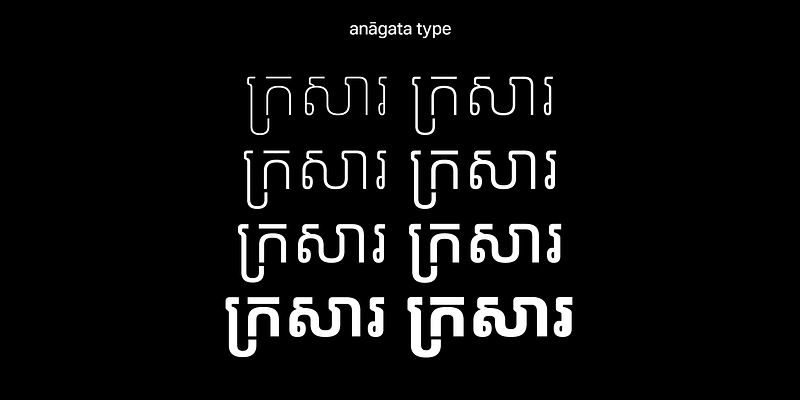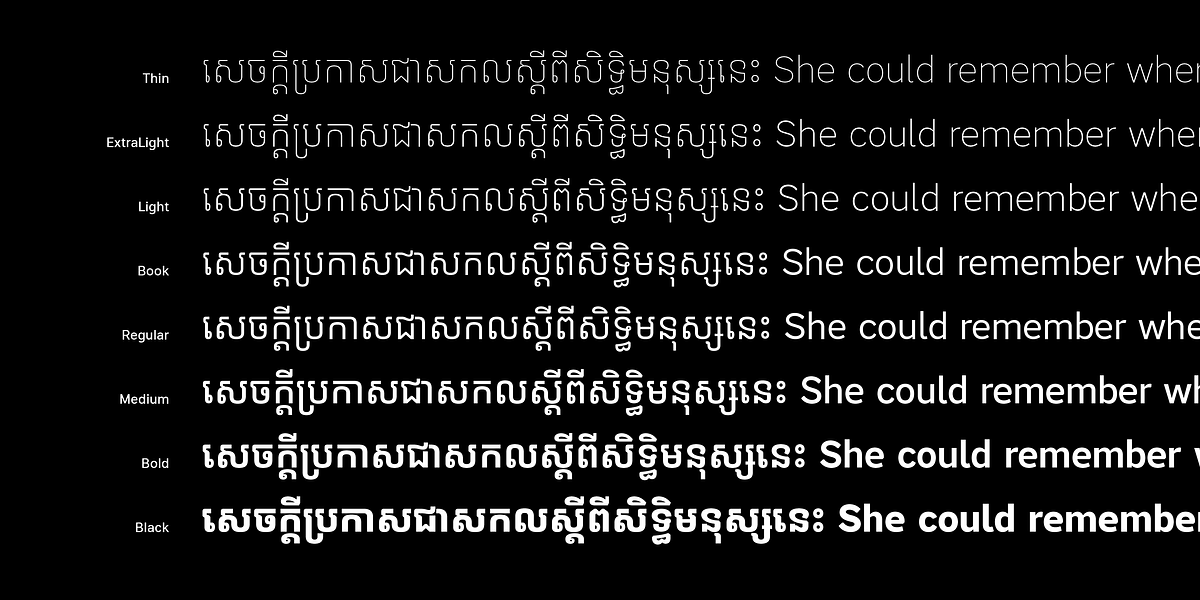
Krasar — Khmer Font
About Krasar
Krasar is a humanist Khmer font family with simplified letterforms aiming for long reads on screen and paper. The overall letterform gets its inspiration from the handwriting movements where knots and loops connect to the stem in a continuous stroke. Since 2018, many designers and Cambodian corporates have chosen Krasar as one of the typeface choices for their works and brand identity. Krasar comes in 8 weights, from Thin to Black, giving a good range of choices for users to choose.